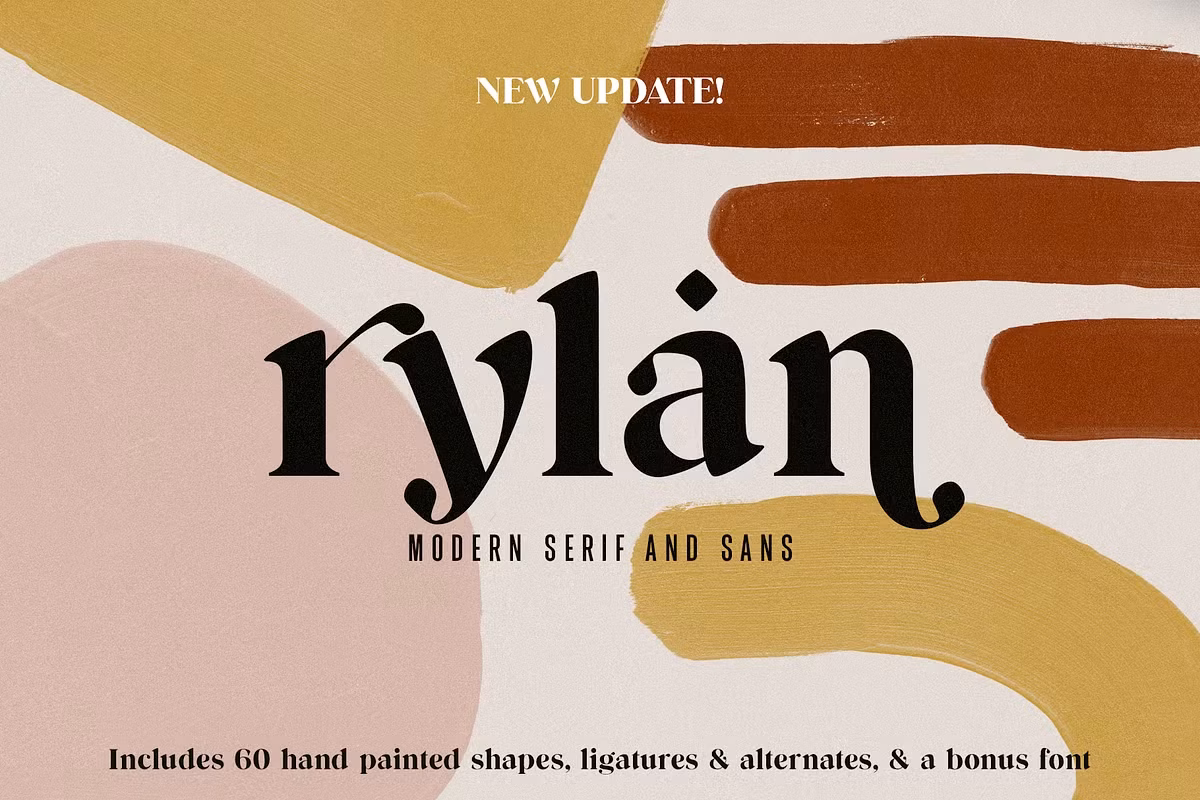
You must purchase this font for commercial use. However, you can download Rylan Modern Serif Font + Extras Free Download for testing purposes. Rylan Modern Serif Font is a beautifully crafted typeface, offering stylish serifs paired with sleek modern touches, making it perfect for fashion branding, editorial design, elegant invitations, luxury packaging, and standout social media graphics. With clean lines and sophisticated curves, Rylan adds a contemporary yet timeless aesthetic to any creative project. The package also includes bonus elements, such as decorative ligatures, stylistic alternates, and design extras, providing designers with versatile options to elevate their designs. Whether you're designing premium branding, crafting a memorable logo, or creating striking magazine layouts, Rylan Modern Serif Font + Extras Free Download gives you the flexibility and tools needed for exceptional visual impact. Download Rylan Modern Serif Font + Extras Free Download today, and explore its full creative potential. Please remember to adhere to the licensing terms for commercial projects.